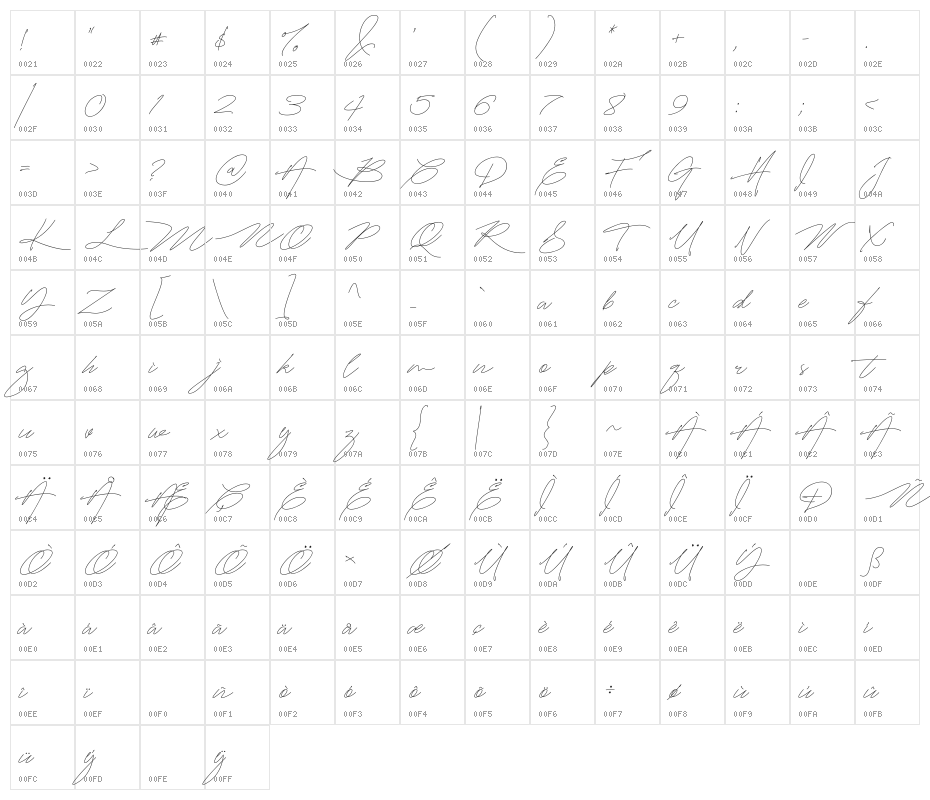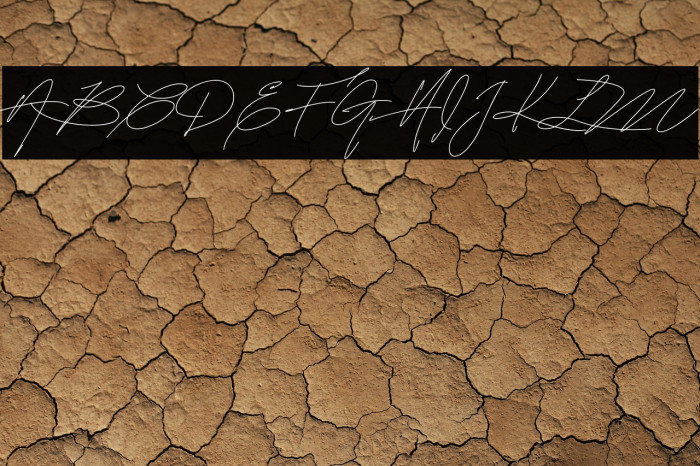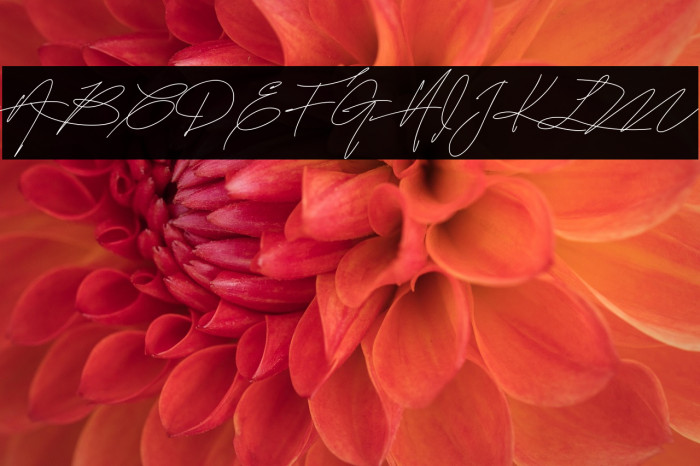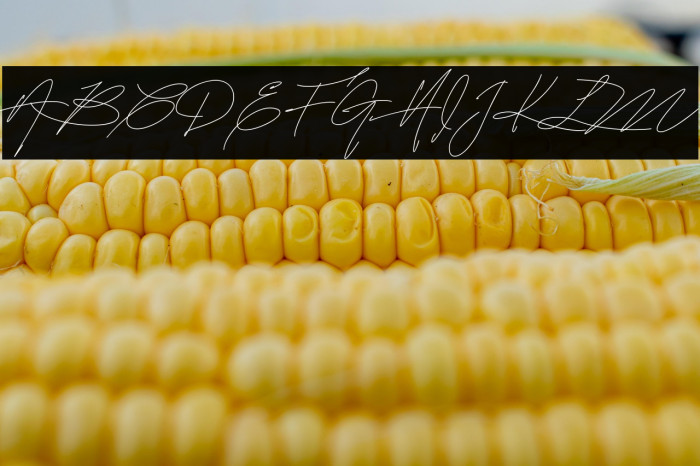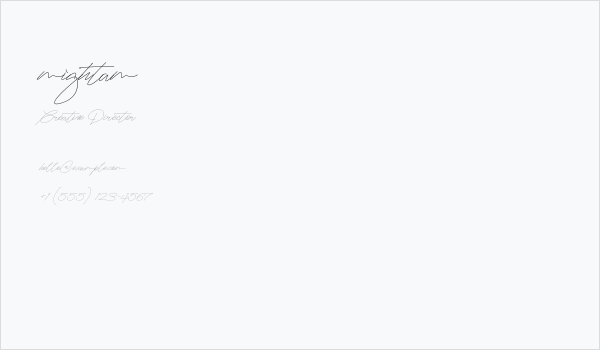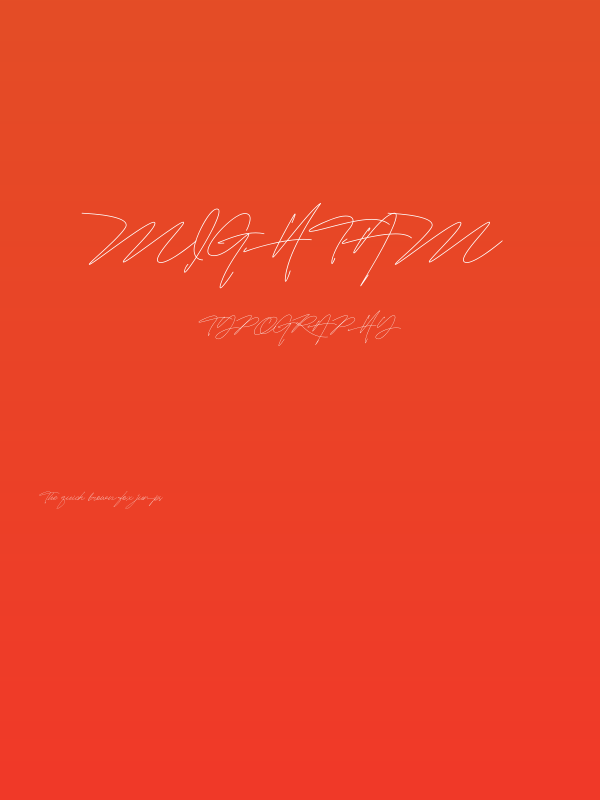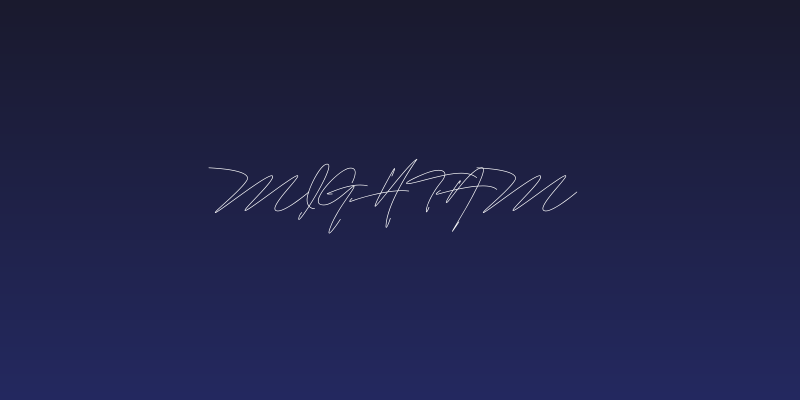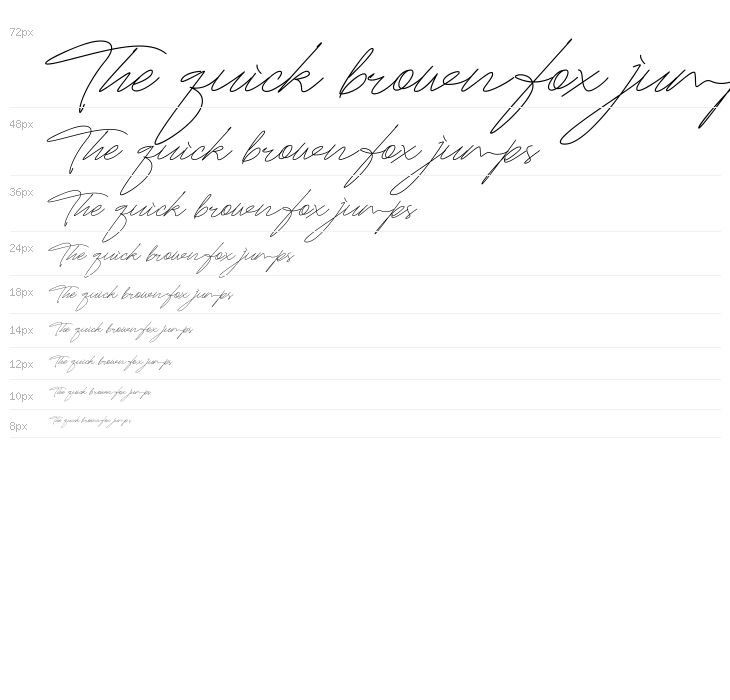
mightam Font
mightam Description
This font exhibits a flowing, cursive style that mimics elegant handwriting. The letters are interconnected with sweeping strokes, creating a sense of fluidity and movement. The uppercase letters are slightly more ornate, with extended loops and flourishes, while the lowercase letters maintain a consistent, smooth flow. The numerals and special characters are designed to complement the script, maintaining the same graceful aesthetic. The overall appearance is sophisticated and artistic, making it suitable for projects that require a personal, handwritten touch.
Overall StyleElegant, Artistic